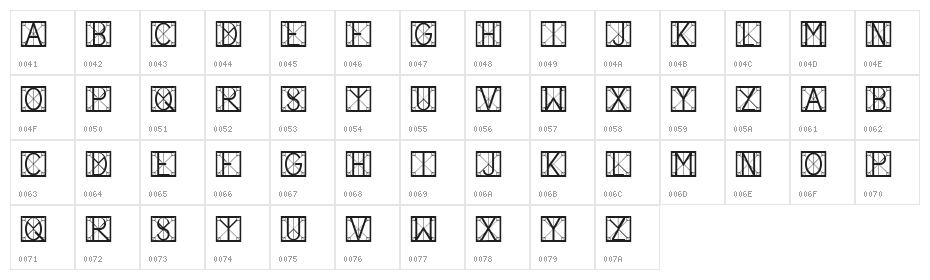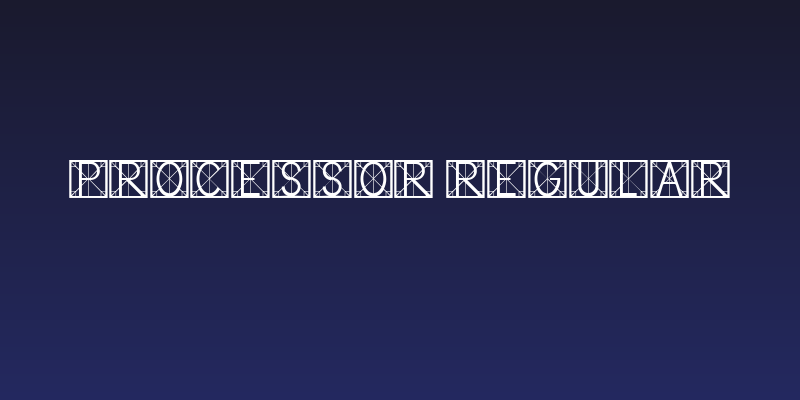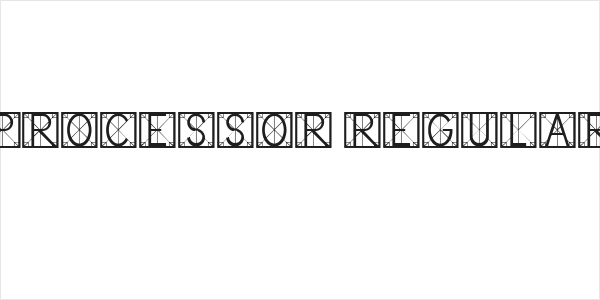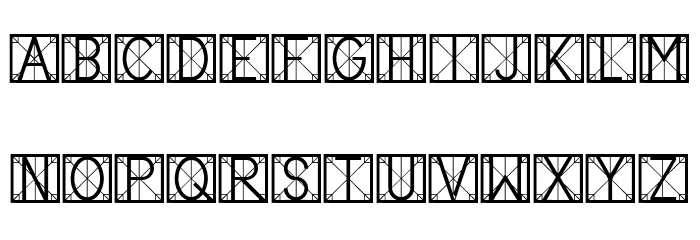
Processor Regular Font
Processor Regular Description
This font features a unique and intricate design, characterized by a geometric and grid-like structure within each character. The letters are enclosed in square frames, with intersecting lines and shapes creating a complex pattern. This decorative style gives it a modern and architectural feel, making it stand out with its artistic and structured appearance. The font maintains a consistent height and width across all characters, providing a uniform look. Its detailed design makes it suitable for creative and eye-catching projects where a bold statement is desired.
| Proposed Projects | Ideal for posters, album covers, branding, and any design project that requires a bold and artistic touch. |